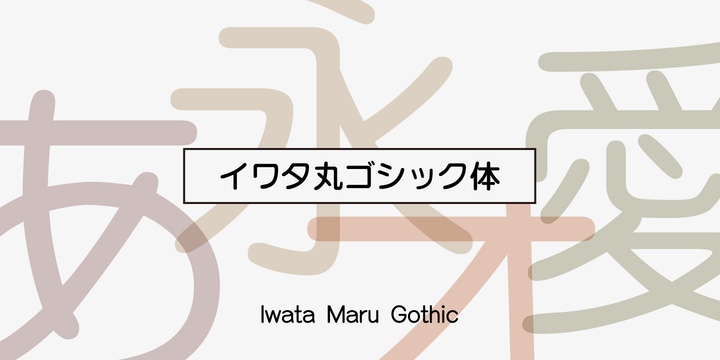
Iwata Maru Gothic W55 Font
Iwata Maru Gothic W55 Font is perfect for Japanese restaurant branding, modern Asian design projects, kawaii culture marketing, contemporary manga graphics, friendly tech interfaces, approachable Japanese businesses, rounded modern signage, and soft Japanese aesthetic communications.
What makes Iwata Maru Gothic W55 Font exciting is its Japanese rounded sophistication that embodies the gentle harmony and modern elegance of contemporary Japanese design with kawaii charm and cultural authenticity. The font features soft letterforms with rounded Japanese proportions and modern character that evoke cherry blossoms, friendly kawaii culture, and the gentle precision of Japanese design philosophy and contemporary aesthetic refinement. Its distinctive rounded styling and Japanese appeal communicate harmony, friendliness, and cultural sophistication, making every message feel touched by Japanese gentleness and blessed by the soft beauty of modern Japanese design and kawaii cultural elegance.
The Iwata Maru Gothic W55 Font family includes regular weight with Latin characters designed in Japanese aesthetic style, numerals, punctuation marks, and special characters. Premium versions often feature additional weights and Japanese-inspired alternates that enhance the rounded, kawaii aesthetic perfect for Japanese and modern design applications.
This elegant Japanese typeface brings instant cultural authenticity and modern credibility to any Japanese-themed project. Iwata Maru Gothic W55 Font Free Download delivers exceptional results for Japanese businesses and modern design organizations seeking to communicate Japanese sophistication, kawaii charm, and contemporary cultural aesthetics to Japanese culture enthusiasts and modern design audiences.
The harmonious character of Iwata Maru Gothic W55 Font makes it particularly valuable for Japanese restaurants, kawaii product brands, and modern Japanese cultural centers. Its excellent readability ensures Japanese messaging and cultural communications remain clear while maintaining the distinctive rounded aesthetic that appeals to audiences seeking authentic Japanese experiences and modern kawaii culture.
Japanese cultural marketers appreciate how Iwata Maru Gothic W55 Font effortlessly conveys cultural authenticity and modern Japanese charm. The font's rounded proportions and Japanese details create beautiful brand materials that establish connections with audiences who value Japanese culture, kawaii aesthetics, and the gentle harmony of contemporary Japanese design and cultural sophistication.
The versatile harmony of this typeface extends to Japanese language education, kawaii fashion brands, and modern Japanese technology where cultural authenticity enhances Japanese credibility and modern appeal. Iwata Maru Gothic W55 Font Free Download provides creative professionals with an essential tool for developing memorable, culture-driven designs that resonate with audiences who embrace Japanese culture, kawaii charm, and the rounded elegance of modern Japanese aesthetics in their cultural and design experiences.